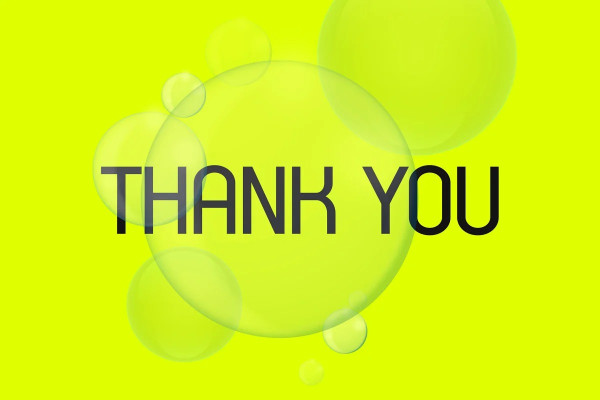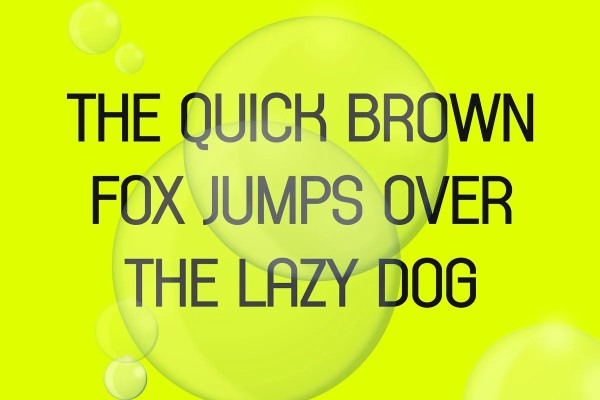
Moreday Font
Moreday Font – Modern Sans Serif, is a modern and simple font, best used as a display for headings, logos, branding, magazines, product packaging and invitations.